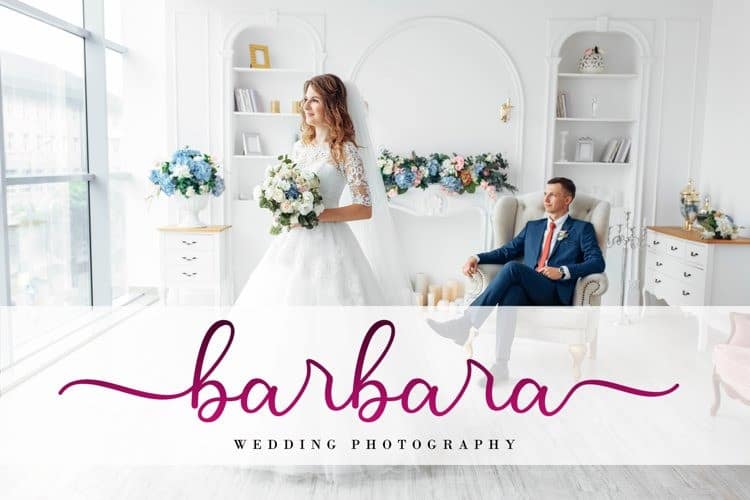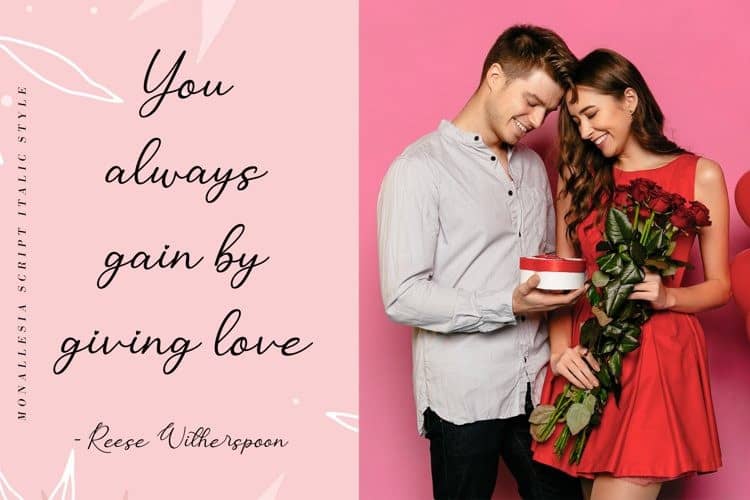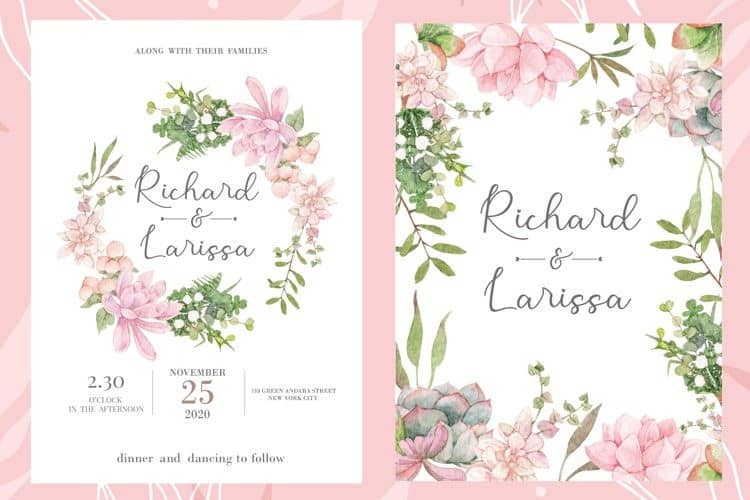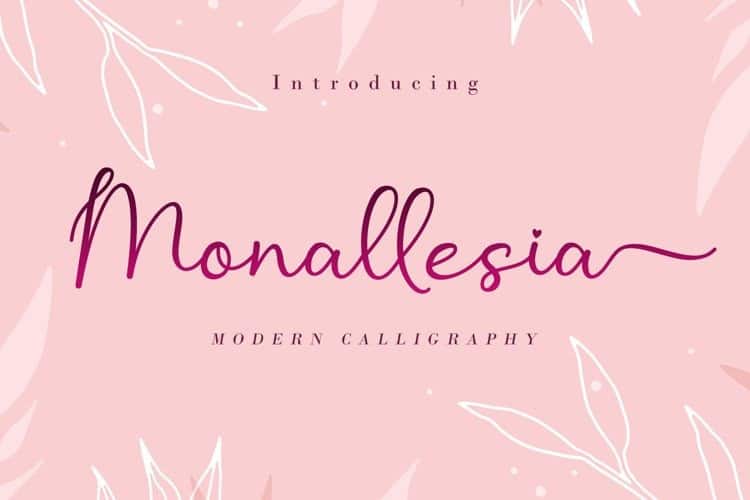
Monallesia Calligraphy Font is an exquisite handwritten font, masterfully designed to become a true favorite. Made from font designer named AEN Creative Studio. It is PUA encoded which means you can access all of the glyphs and swashes with ease! It features a varying baseline, smooth lines, gorgeous glyphs and stunning alternates. It maintains its classy calligraphic influences while feeling contemporary and fresh. Fall in love with its incredibly versatile style and use it to create spectacular designs!